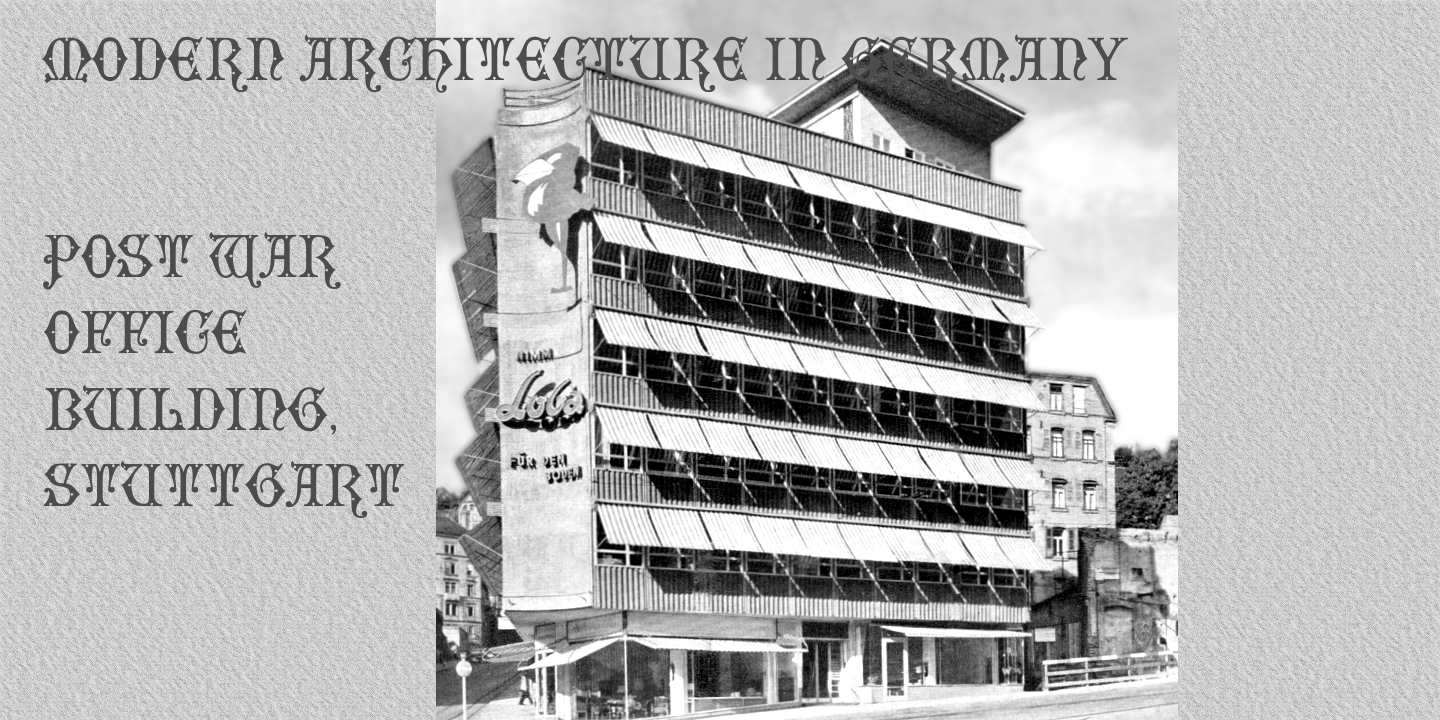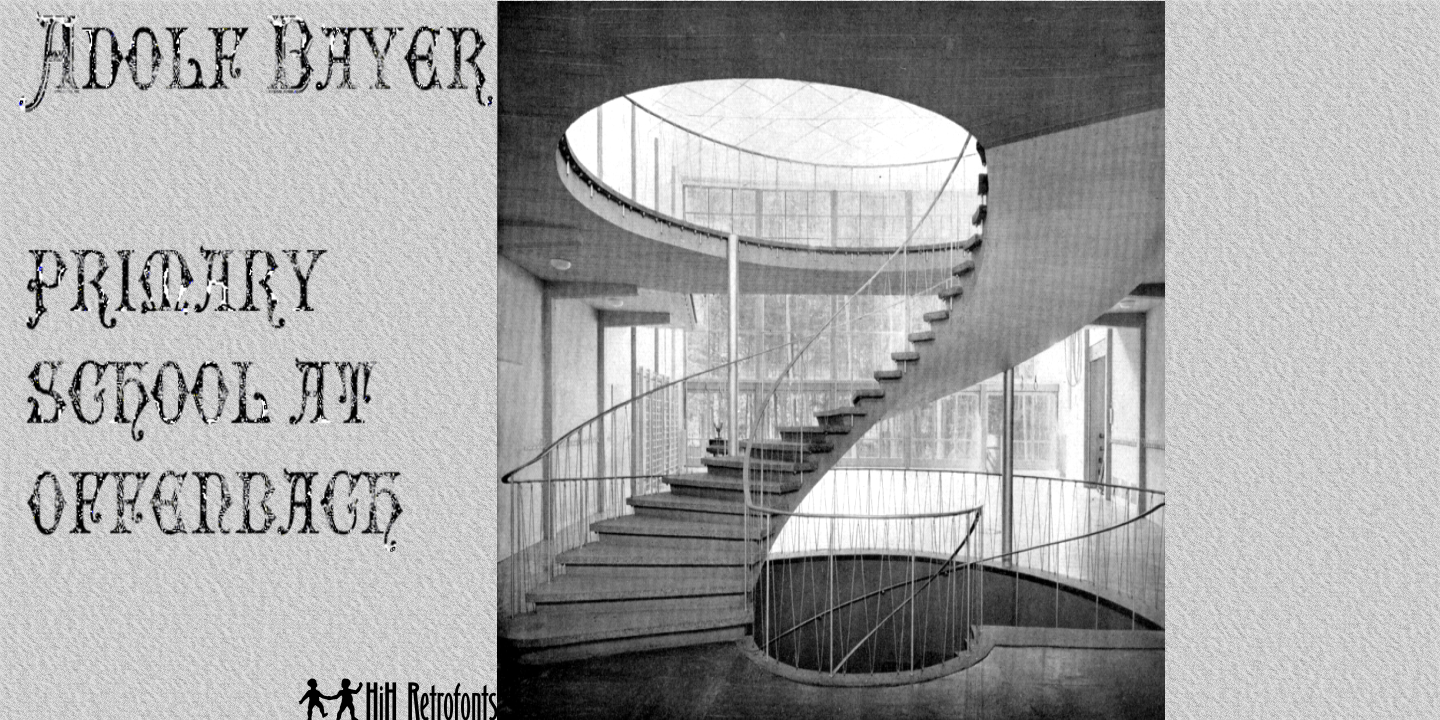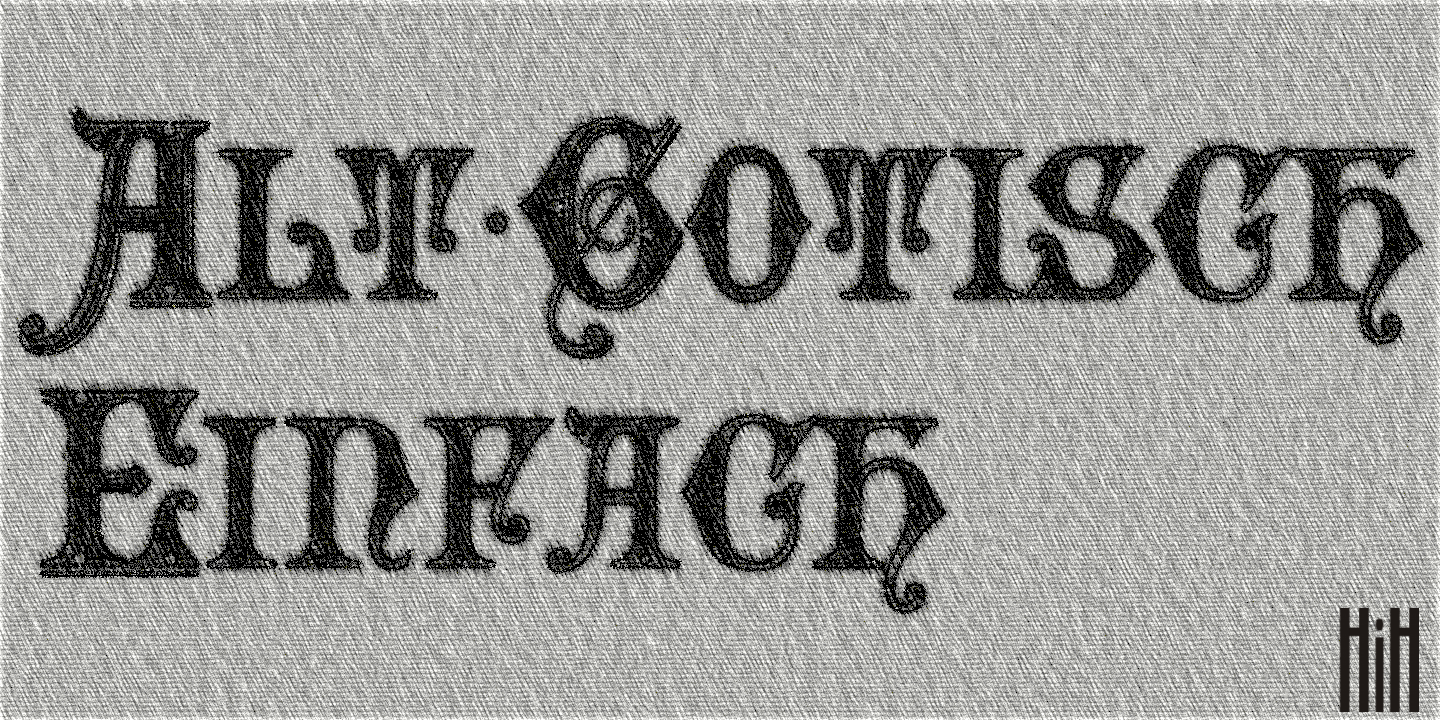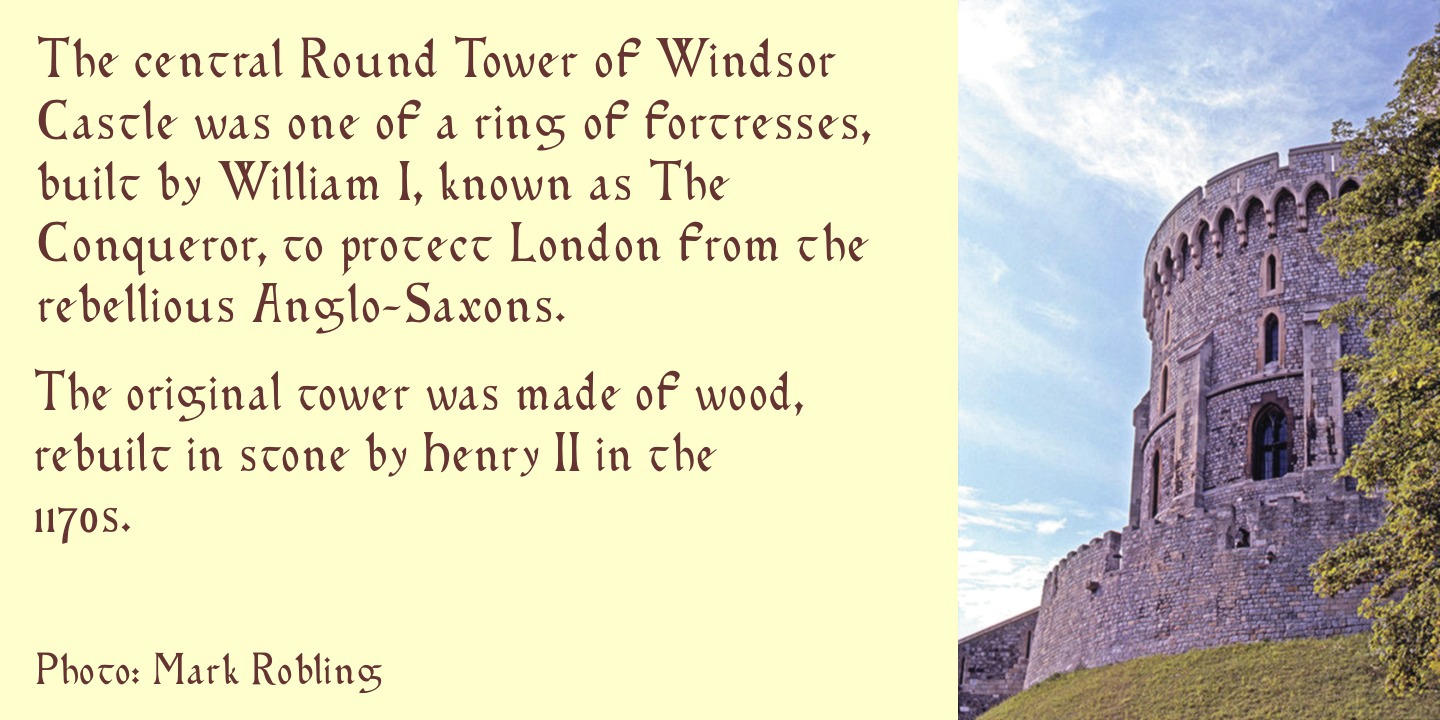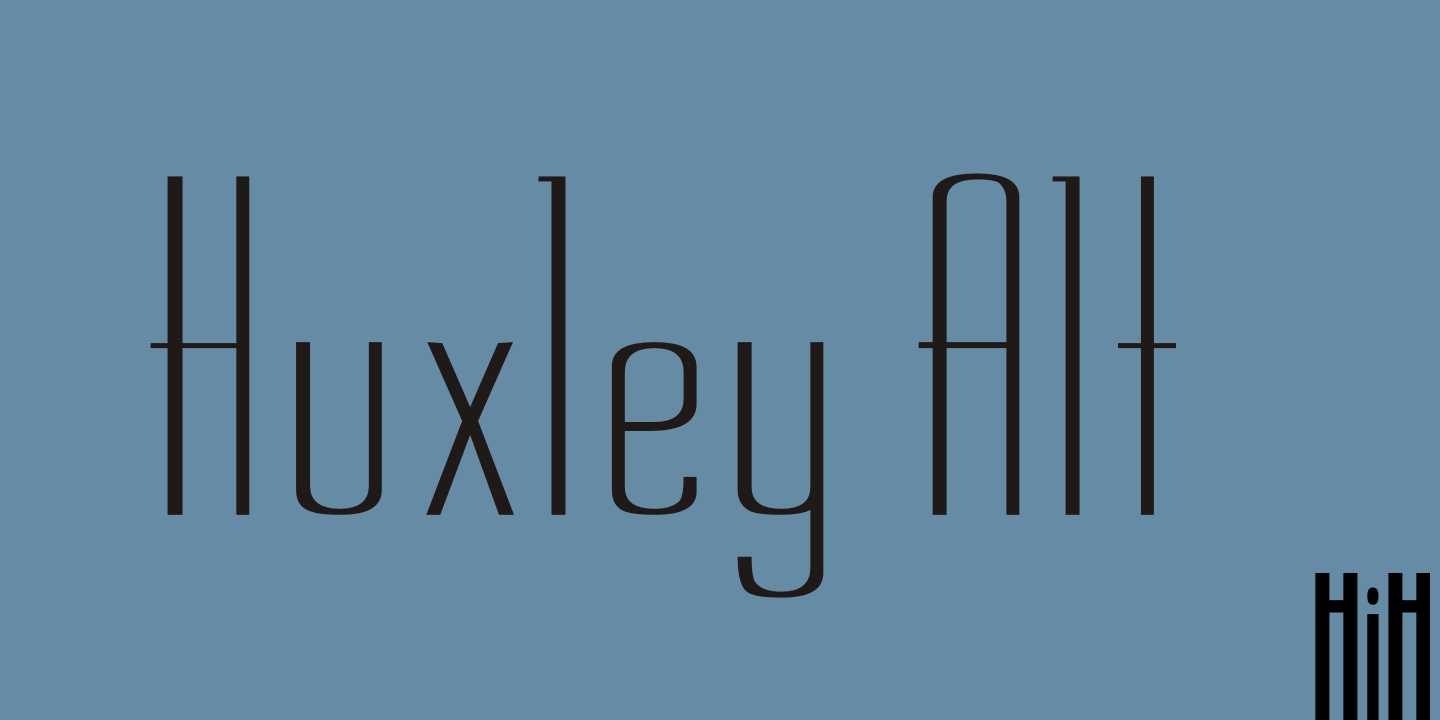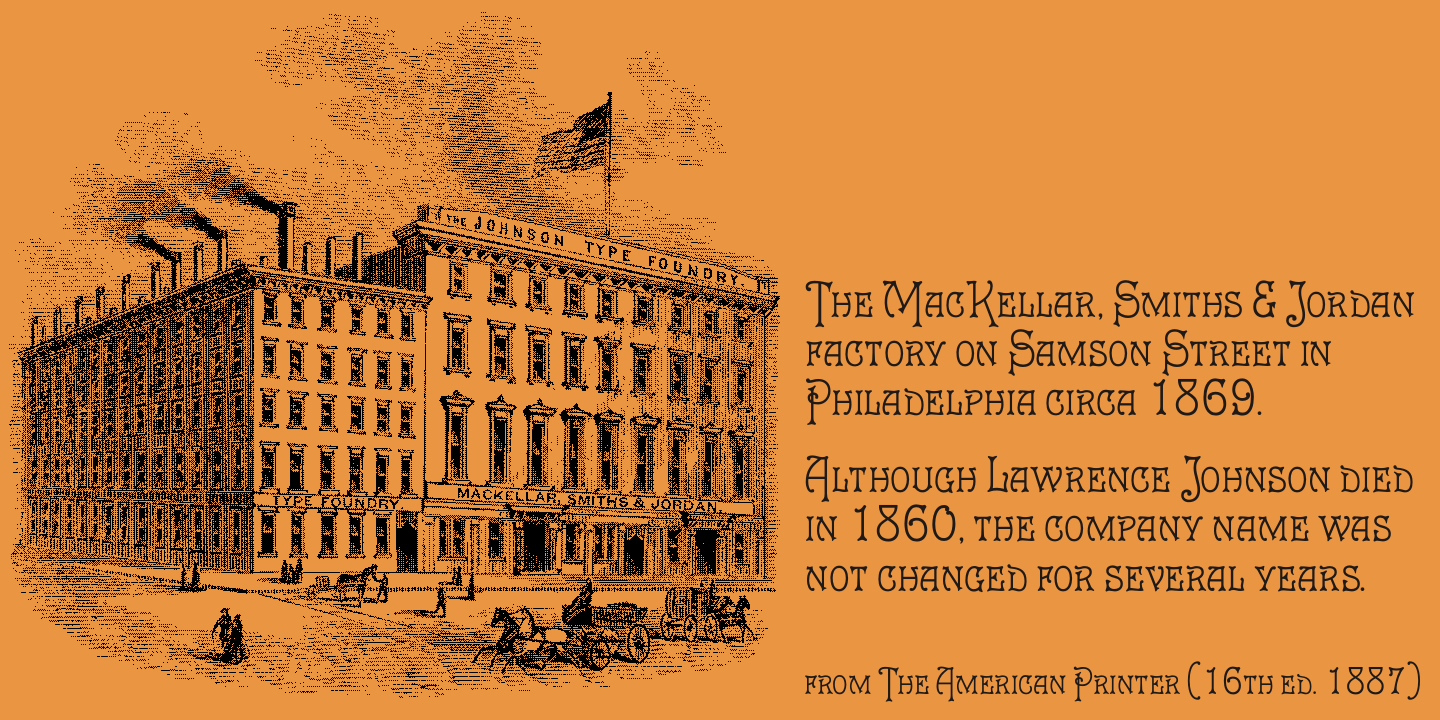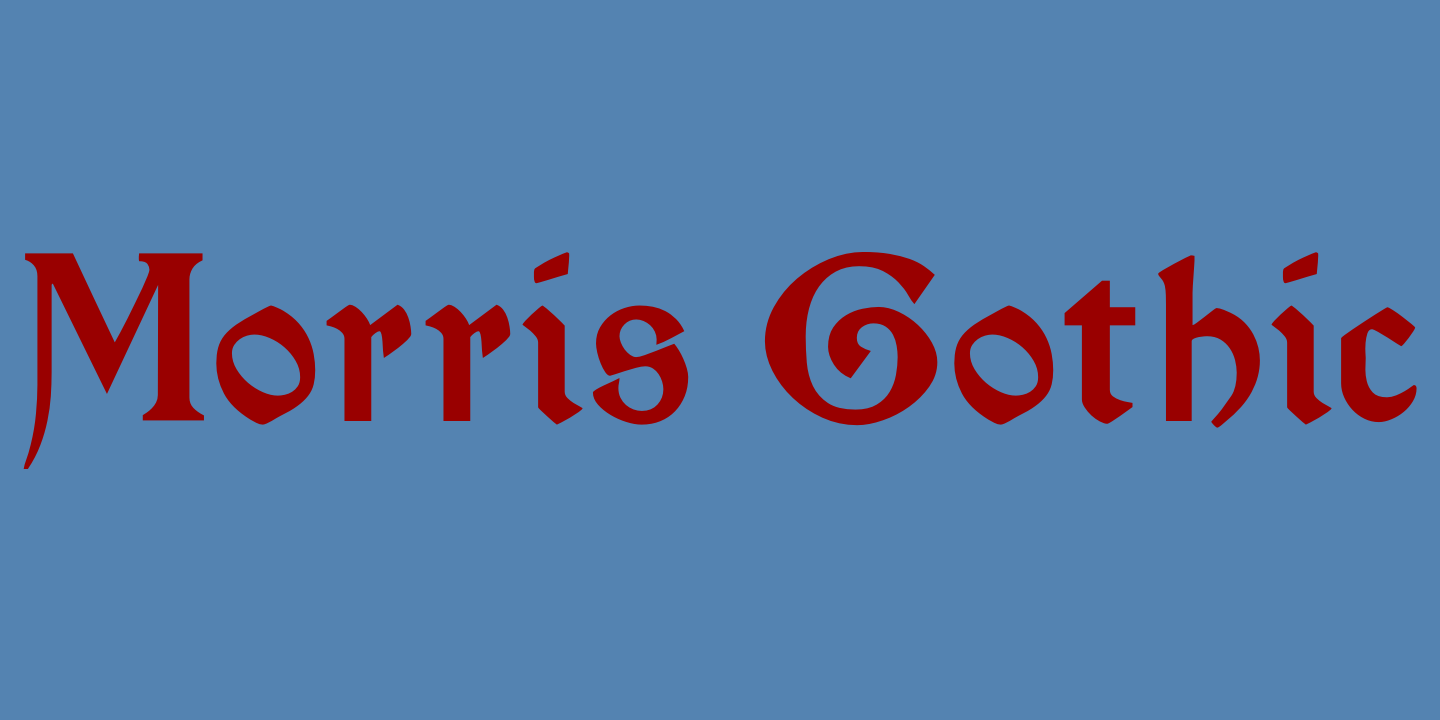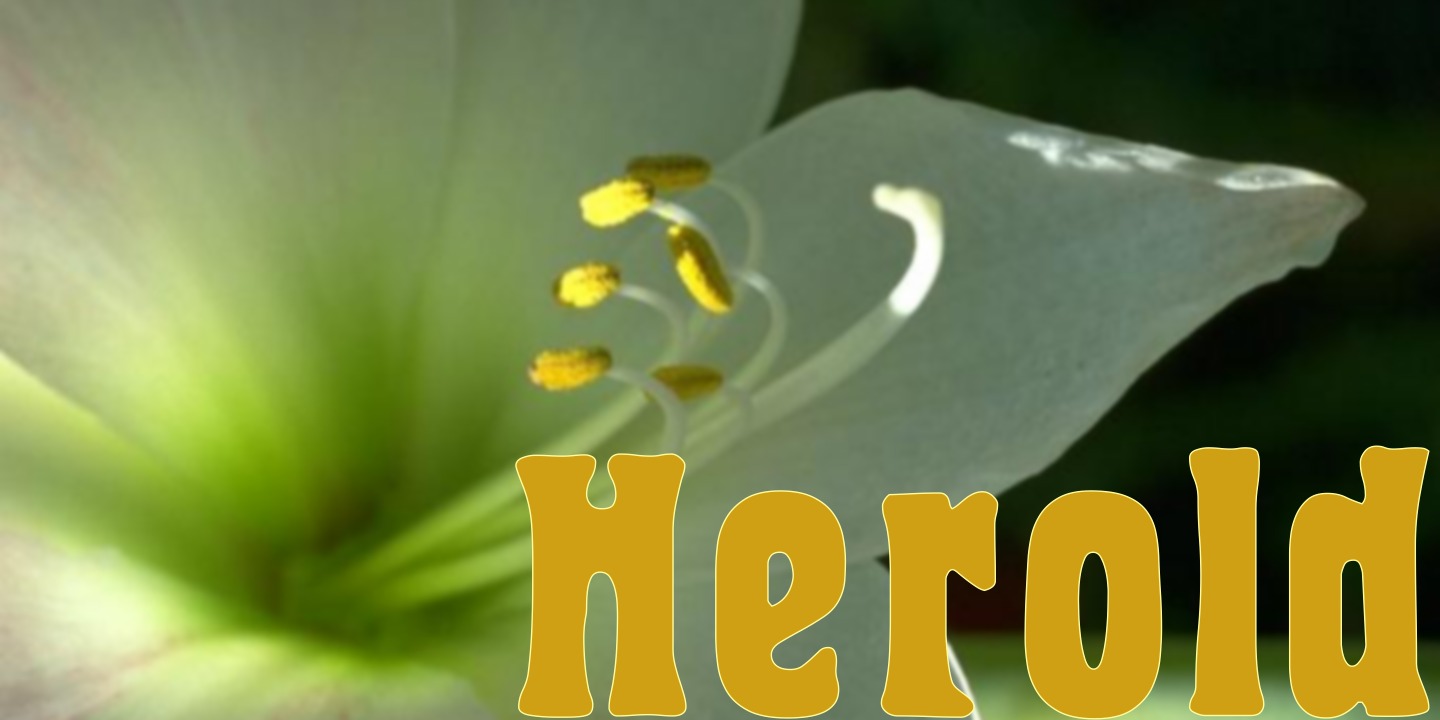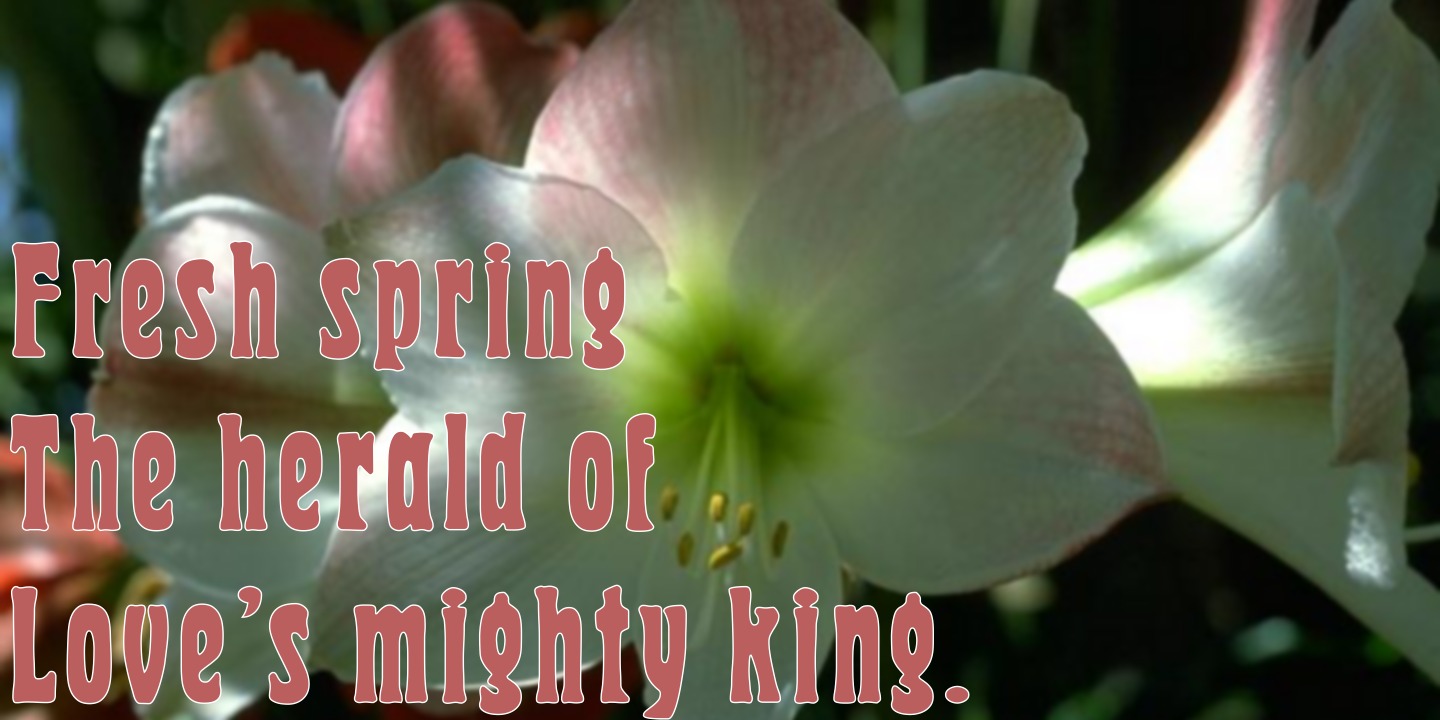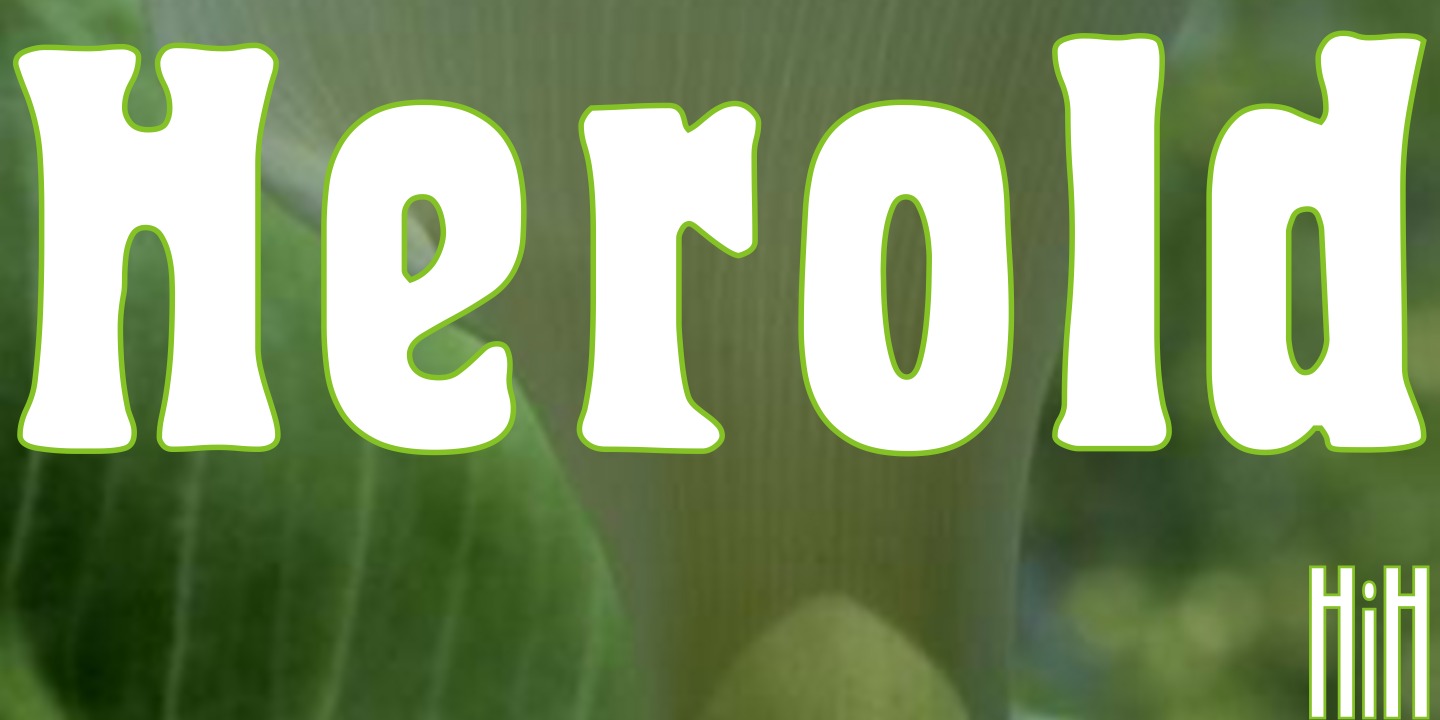
MyFonts’ review: Tom Wallace of HiH (Hand-in-Hand) is a lover of historic typefaces, particularly the period 1815 to 1914 – “typography’s teenage years, messy, conflicted and full of the discovery of the raw power being unleashed” in his evocative words. After a childhood spent kowtowing to Roman forefathers, to extend the metaphor perhaps. HiH fonts impress not least for their full character sets: too often this genre gets just the basics. Our favorites? Figgins Tuscan has pleasing organic shapes: “our interpretation of what Vincent Figgins might have produced in a basic, plain Tuscan form”. Edison has zany coils with the “mechanics of a coiled spring, rather than the tendrils of a growing plant”. Augsburger Initialen might be used for drop caps in any art nouveau design. • Browse HiH Fonts (70) BiographyHiH stands for Hand-in-Hand because I couldn’t do it alone — any of it. I am as interested in history as I am in typefaces and I firmly believe that no typeface is an island, either. By that I mean, every typeface has a context and a history and is a product of some person(s) creativity and effort. Since alphabets have the purpose of written communication, a typeface cannot be TOTALLY original or it would be useless. A typeface must, at minimum, resemble other typefaces that already exist. If a reader cannot recognize any of the letterforms, the reader will not be able to read any of the words formed by those letters and there will be no communication. Over time, I evolved a growing dislike for the practice, that goes back to the earliest foundries, of copying and renaming fonts without attribution, as if each look-alike font was the product of original and independent effort. I found it confusing and frustrating, so I started off giving back the original name some of the fonts I had accumulated. Next, I became dissatisfied with fonts that were missing punctuation or special characters that were (or should have been) part of the original design, etc. I started adding them as I needed them. Then I found myself re-designing some of the non-alphabetic characters. I think all of the characters should look like they belong with the font and not hauled out of the trash someplace. For example, I think a blackletter typeface should have a period that reflects the same broadpen characteristics as the letterforms. Who draws perfect circles with a broadpen nib? On the other hand, why would anyone want math symbols with a copperplate script? That is like blackletter small caps or a swash version of a geometric sans-serif. You get the picture. And then there are all the really great Victorian & Art Nouveau typefaces that I could not find in digital form. Personally, I think the 19th century (more exactly, from 1815 through 1914) is the most exciting in the history of typography — the teenage years, messy, conflicted and full of the discovery of the raw power being unleashed. There was no escape. I had to make my own. I hope you like them and find them useful. — Tom the Boxer, HiH Retrofonts Character SetsWe use a standard Windows 3.1 character set with 213 visible characters or glyphs and 256 total character slots (some reserved for program functions and not visible) for display typefaces. We think Unicode is really great for text faces, but often overkill for display purposes. We use Fontographer 4.1 and like to see the entire character set displayed on a single screen — not possible with Unicode. We frequently deviate from the standard ASCII set, which we believe includes some silly choices. Don’t look for a “logical not” in our faces. For diacritical marks (accents), we generally include the acute (´), grave (`), dieresis or umlaut (¨), circumflex (ˆ), tilde (˜), cedilla (¸) and macron (¯). Most of our fonts are revivals. Priority is given to the accents and special characters needed to set the native language of the original designer. Bringhurst lists 59 letter forms in Roman- or Latin-based alphabets alone (exclusive of Cyrillic, Greek, Hebrew, etc). For example, there are four Os: the standard O, the slashed O, the horned O, and the open O. When you add in the various accent combinations, from O-acute for to open-O-ogonek, you wind up with a total of forty variations on the letter O alone. The old saw that you cannot be all things to all people obviously applies here. Note: for the Austro-Hungarian Monarchy, the official administrative languages were German and Hungarian. While Czech, Polish, Serbo-Croatian, Slovenian were important regionally, it was a major political issue that they did not have official standing. (There were periods when their use was actually forbidden.) We try to include ligatures and alternate characters that were part of the original design. We will also include special characters or dingbats when we deem it appropriate to do so. There is a wealth of printer’s ornaments to be found in specimen books. Many have already been digitized in raster form by Dover and others and are available in inexpensive collections on CD. Decorative InitialsAs a rule I try to match decorative initials with appropriate small caps, if available, or with a matching or harmonious lowercase. While the lowercase or small caps will be supplied with accents, the decorative initials will not be, with the sometime exception of C-cedilla and the N-tilde. According to The Chicago Manual of Style, French, Portuguese and Spanish may be set without accents on capitalized vowels; and German can set by using Ae, Oe & Ue in place of the umlauted capitals. Italian varies: accents required for display headlines, but not for text. Æ and Œ will generally not be included in decorated form unless part of the original design. Selected BibliographyThe books listed below are the ones to which we most frequently refer. Each of these books has something unique to offer. Together they can form the core of a useful typographic library. No specimen books are listed because the most important are far beyond anything most people can afford, running into the thousands of dollars. It is hoped that the holders of major historical libraries, such as Columbia University in NYC and St. Bride’s in London, will gradually digitize the most significant and post them on their web sites. Donations might encourage them — it would be an expensive and time-consuming process.